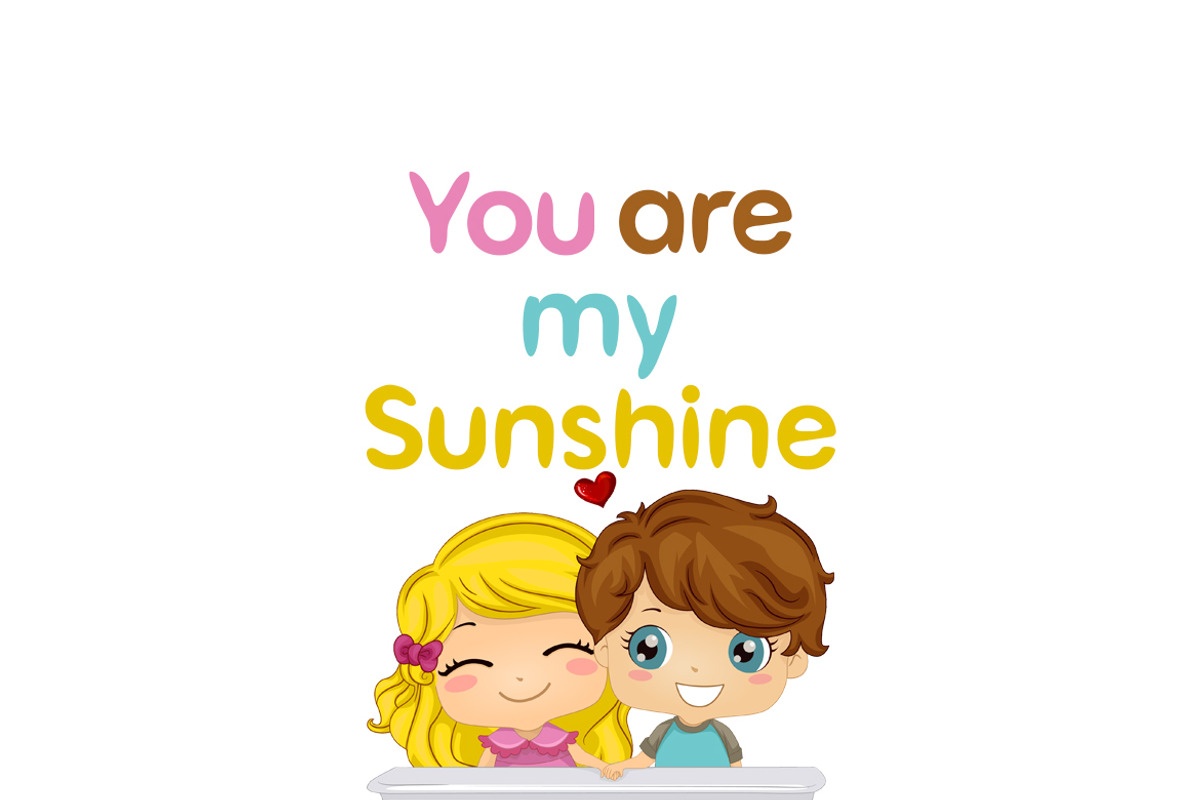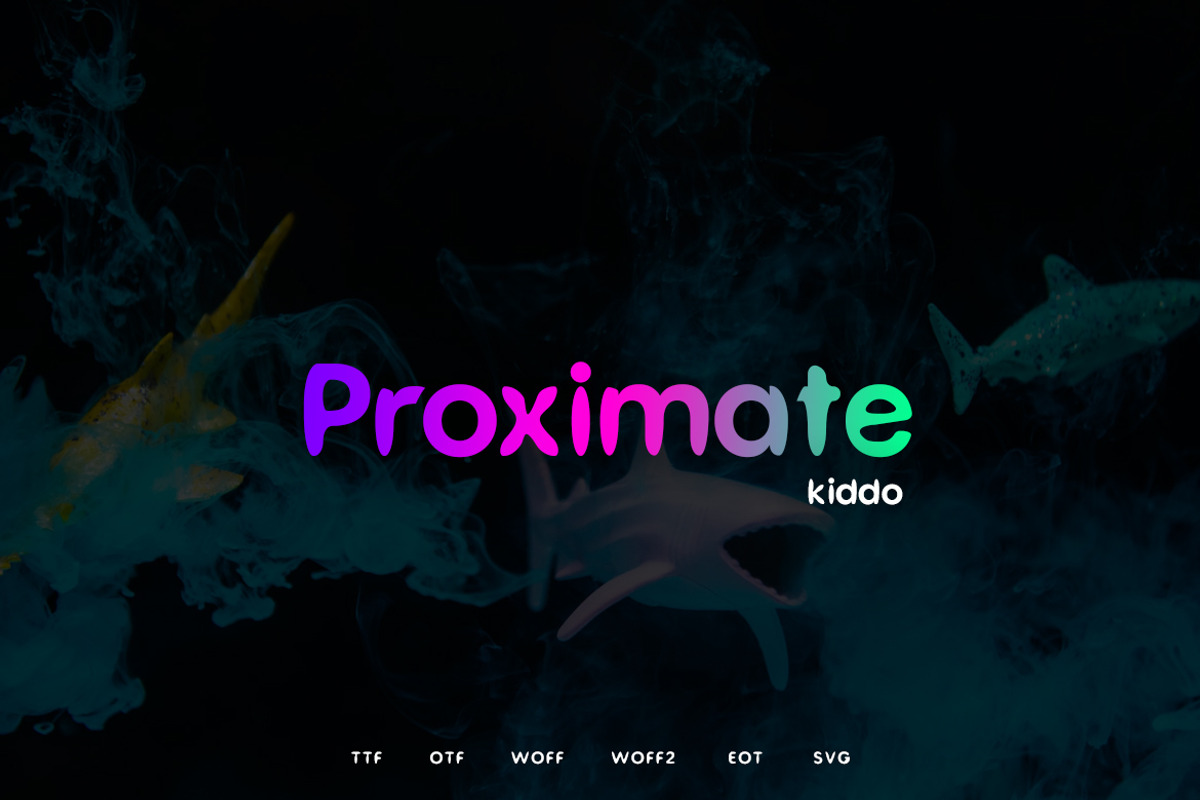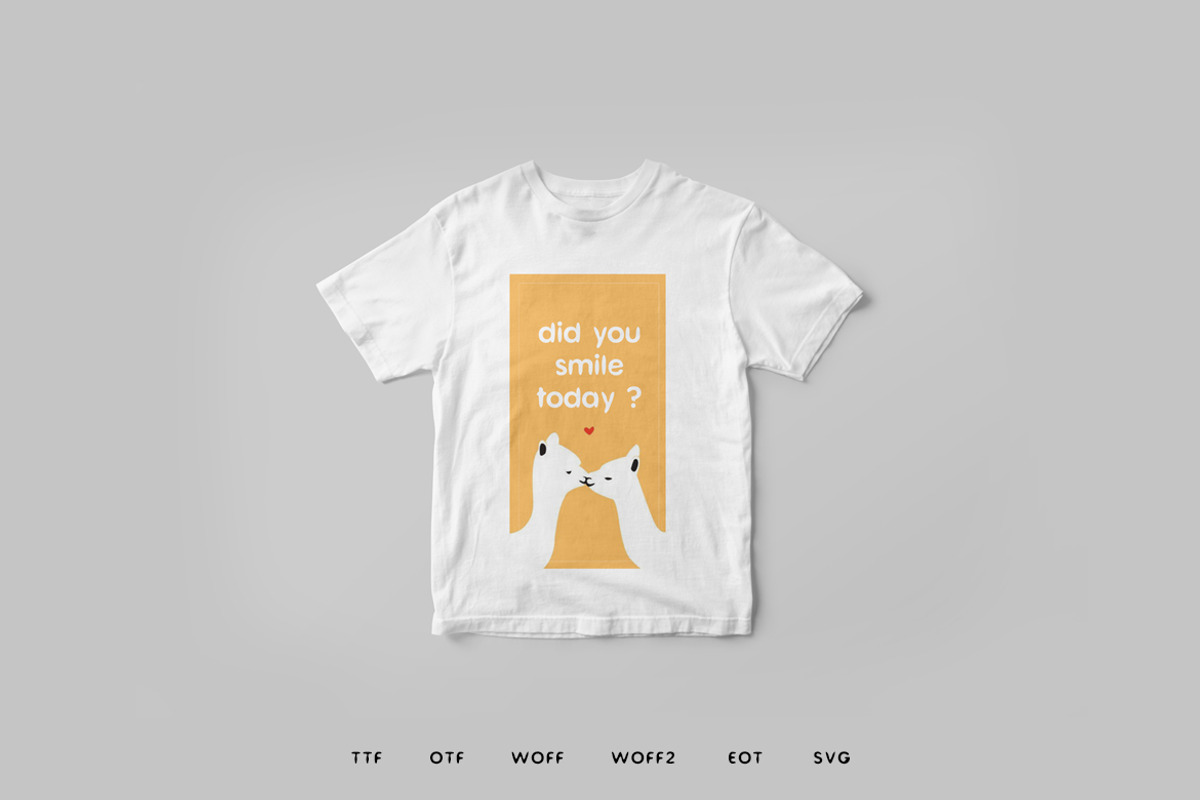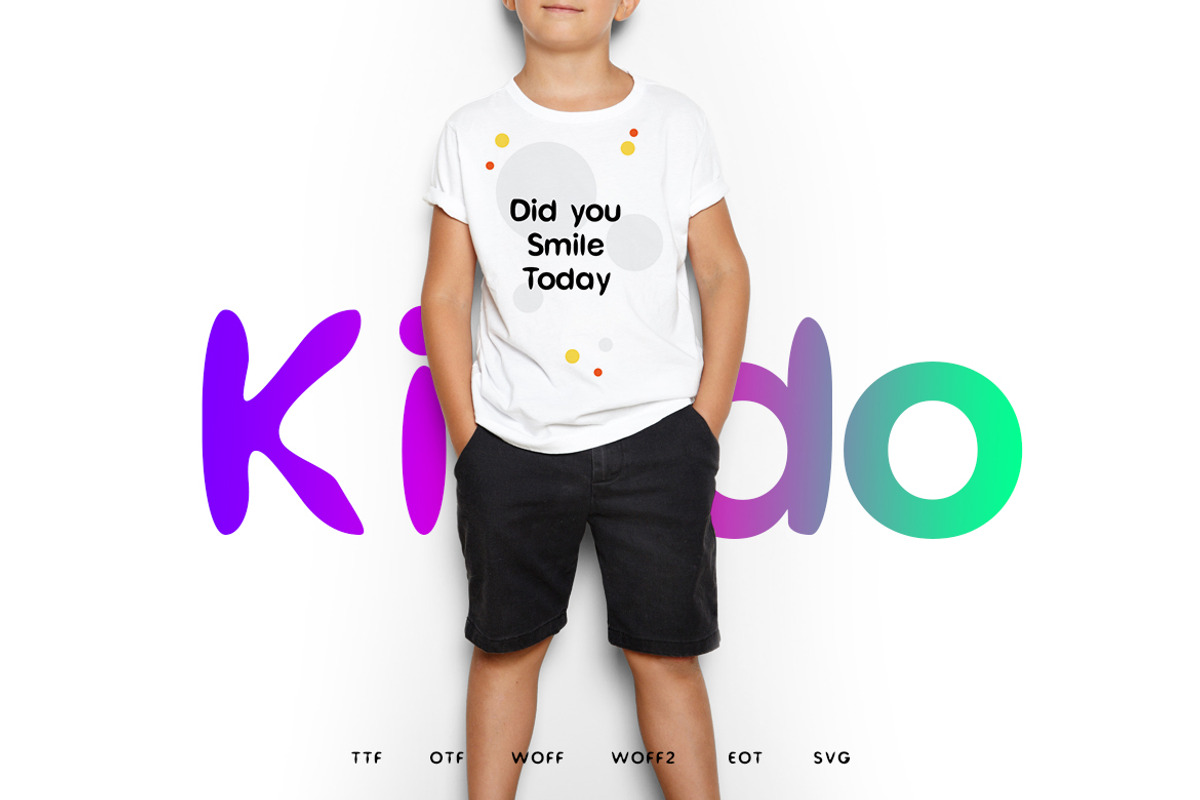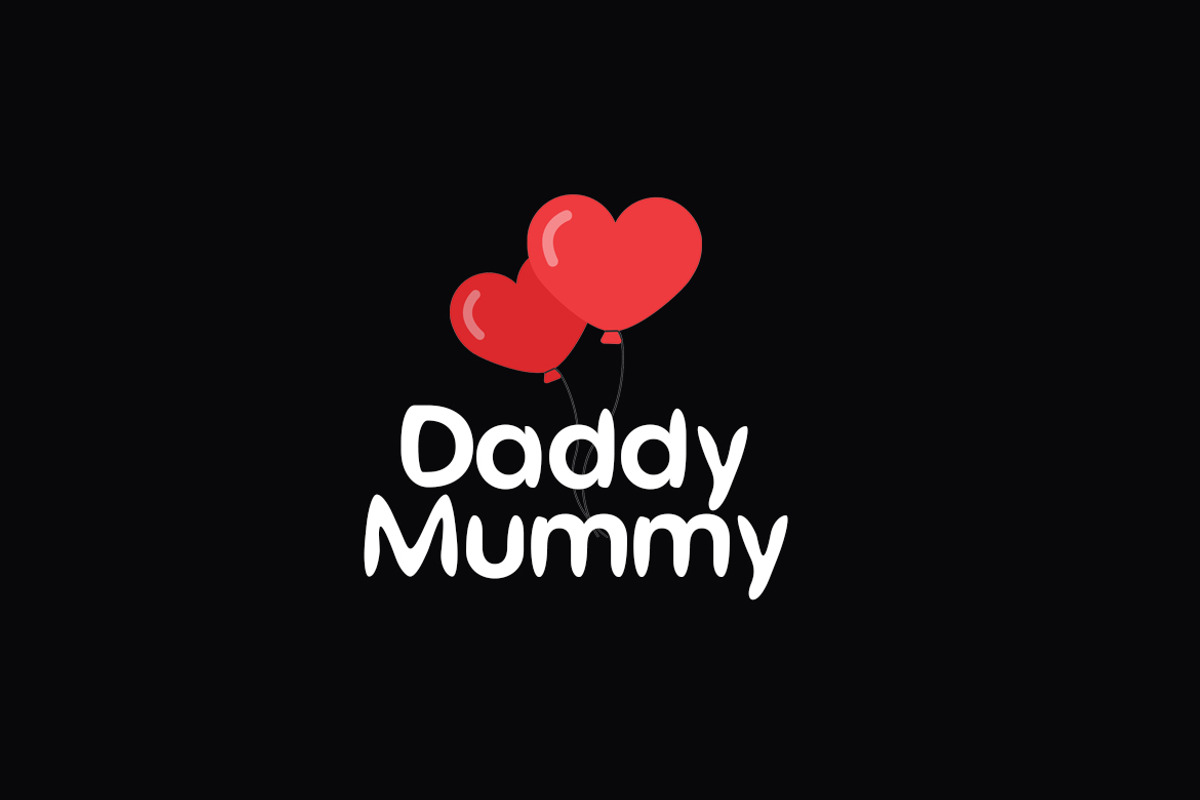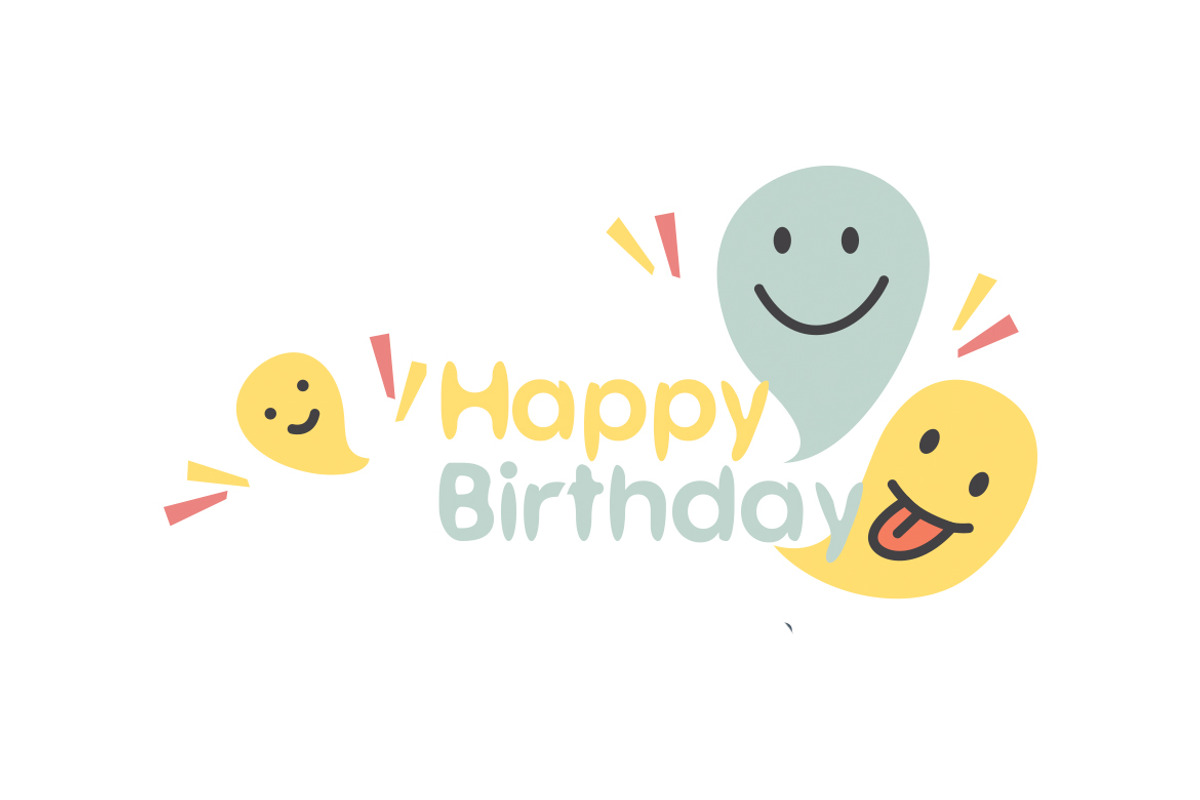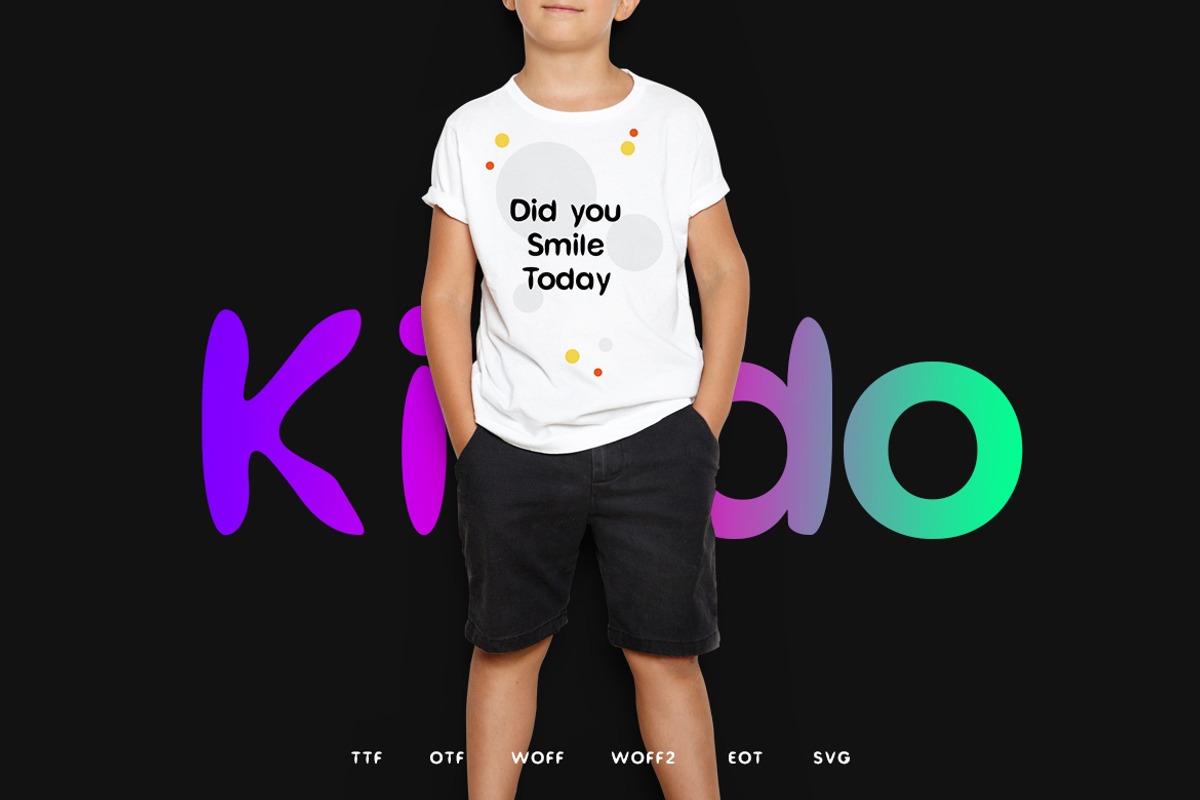
Proximate Kiddo - Display Font
Proximate Kiddo Typeface
Proximate Kiddo is a modern Sans Serif typeface very much suitable for Comic Posters, Childish headlines, Decorative letters, Notices, Logo Designs, Big funny Banners. Creative & Decorative Typography Web Designs.
Proximate Kiddo is perfectly suited for eye-catching fun based headlines. Its Kiddy appearance and mid-weight make it a wonderful candidate for being paired with more decorative, elaborate subheading fonts.
- Proximate Kiddo Regular
Proximate Kiddo - Display Font by Webhance Studio fits naturally into Branding, posters, packaging, typography.